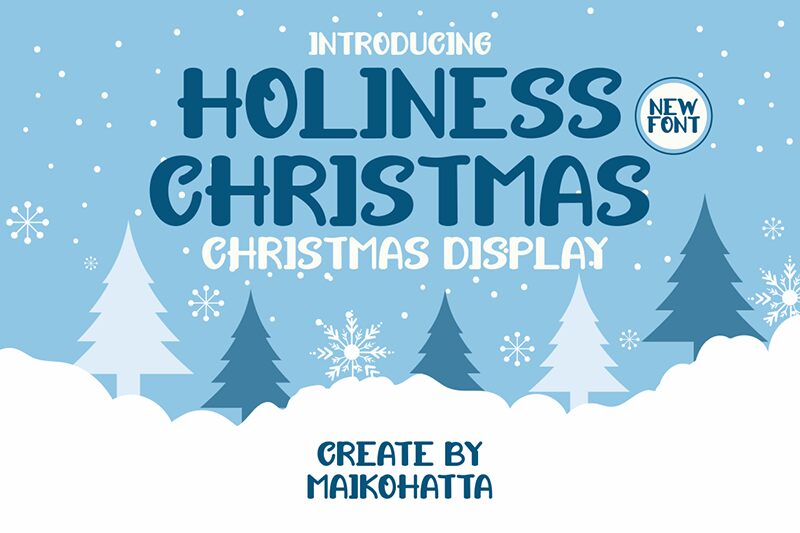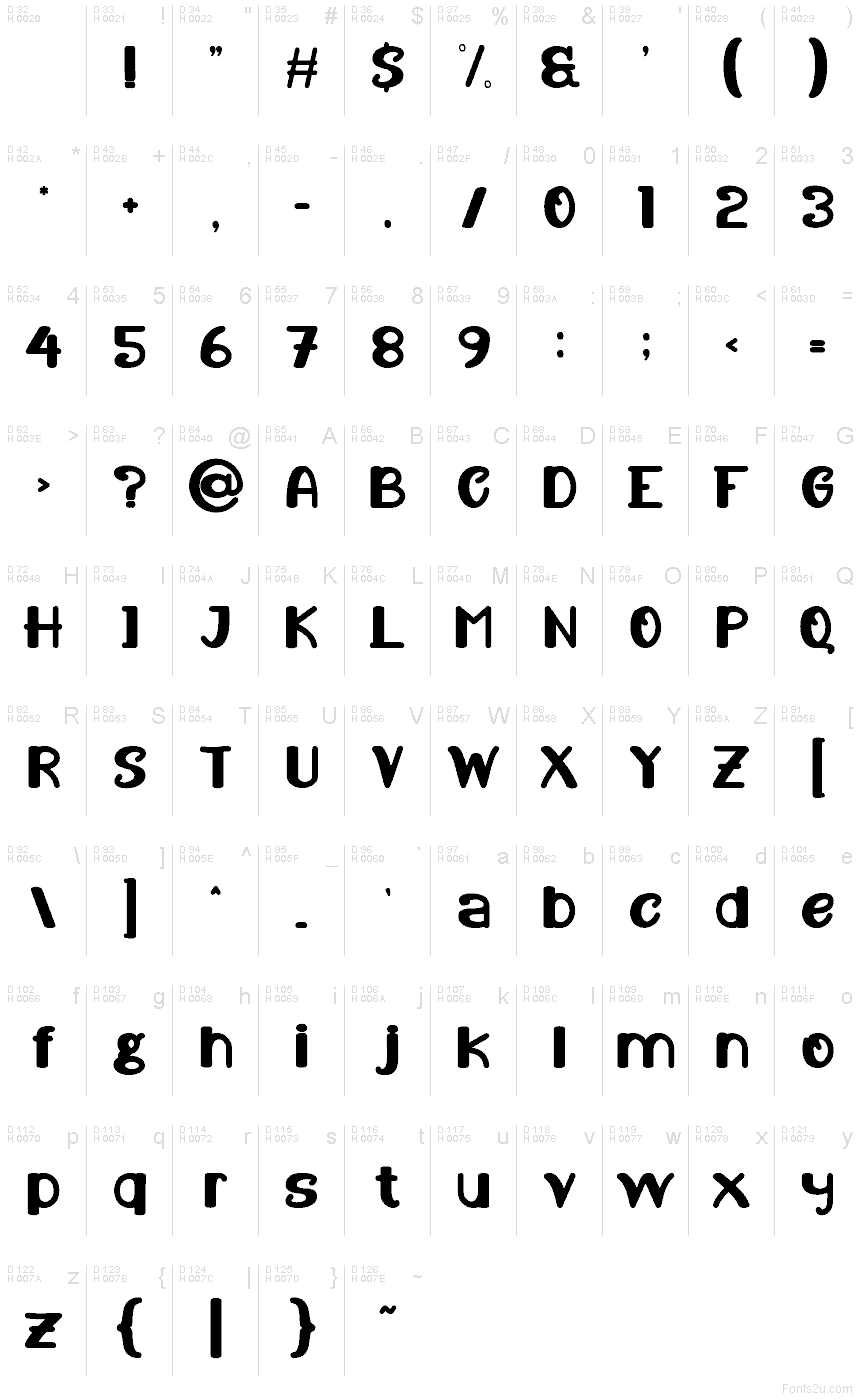
HOLYNESS CHRISTMAS
Holyness Christmas font by Gilang Ternadho is a free holiday Christmas typeface with chunky, rounded letters that feel like hand-painted shop signs in the snow. Its tall, slightly condensed forms and soft curves create a cozy, storybook rhythm that’s easy to read while still feeling festive and a bit retro. The black, inky strokes look strong on screen and in print, giving your seasonal designs that bold, cheerful headline energy without feeling stiff or formal.
Using Holyness Christmas, you can bring warmth and character to gift tags, greeting cards, advent calendars, kids’ party invitations, seasonal branding, posters, and social media graphics. This free font shines when used big and bold, then paired with a simple sans serif for small supporting text.